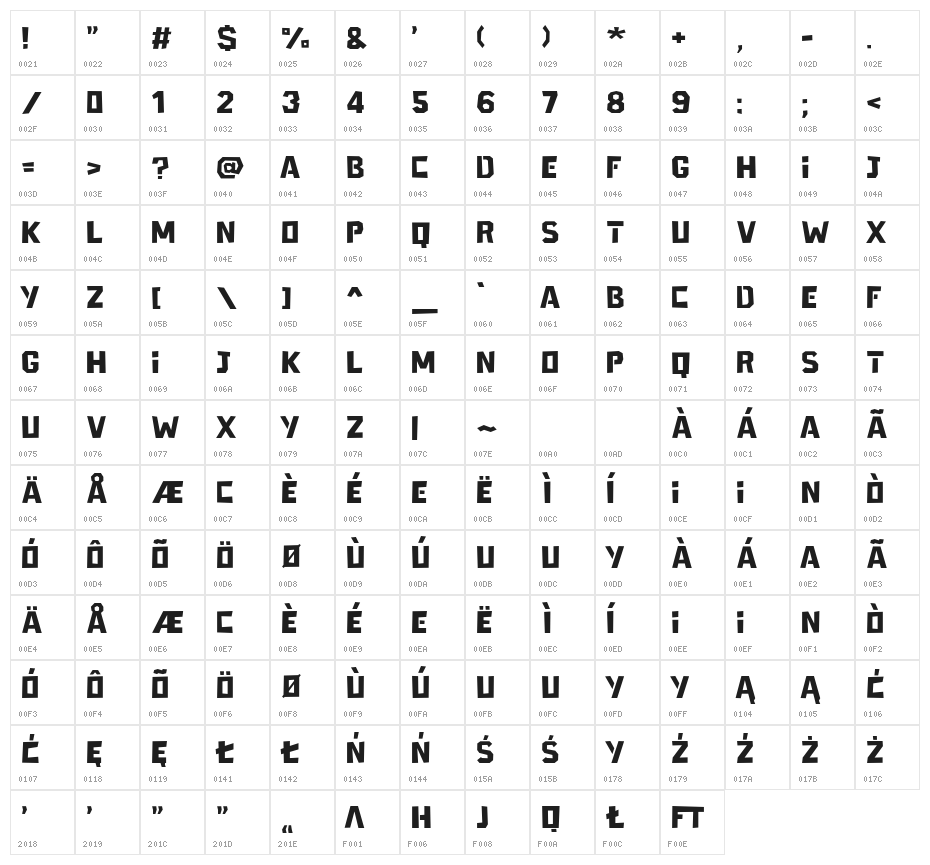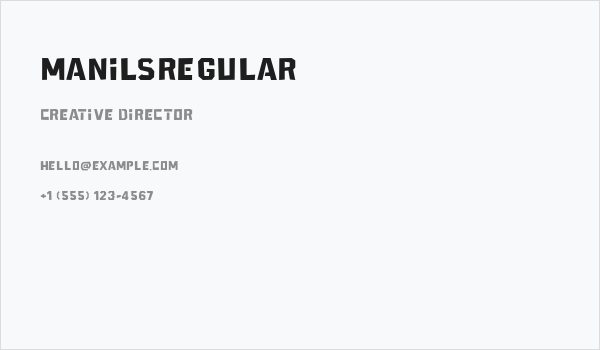
ManilsRegular Font
ManilsRegular Description
This font features a bold, geometric style with angular and blocky letterforms. The characters have a distinct, edgy appearance, with sharp corners and a uniform thickness throughout. The uppercase and lowercase letters maintain a consistent height, contributing to a cohesive look. The numerals and special characters share the same bold and angular characteristics, making them stand out prominently. This font's design is both modern and slightly retro, reminiscent of digital or pixelated aesthetics, yet with a unique twist that adds a touch of personality.
| Proposed Projects | Ideal for digital art, video game graphics, posters, and branding projects that require a bold and distinctive look. |